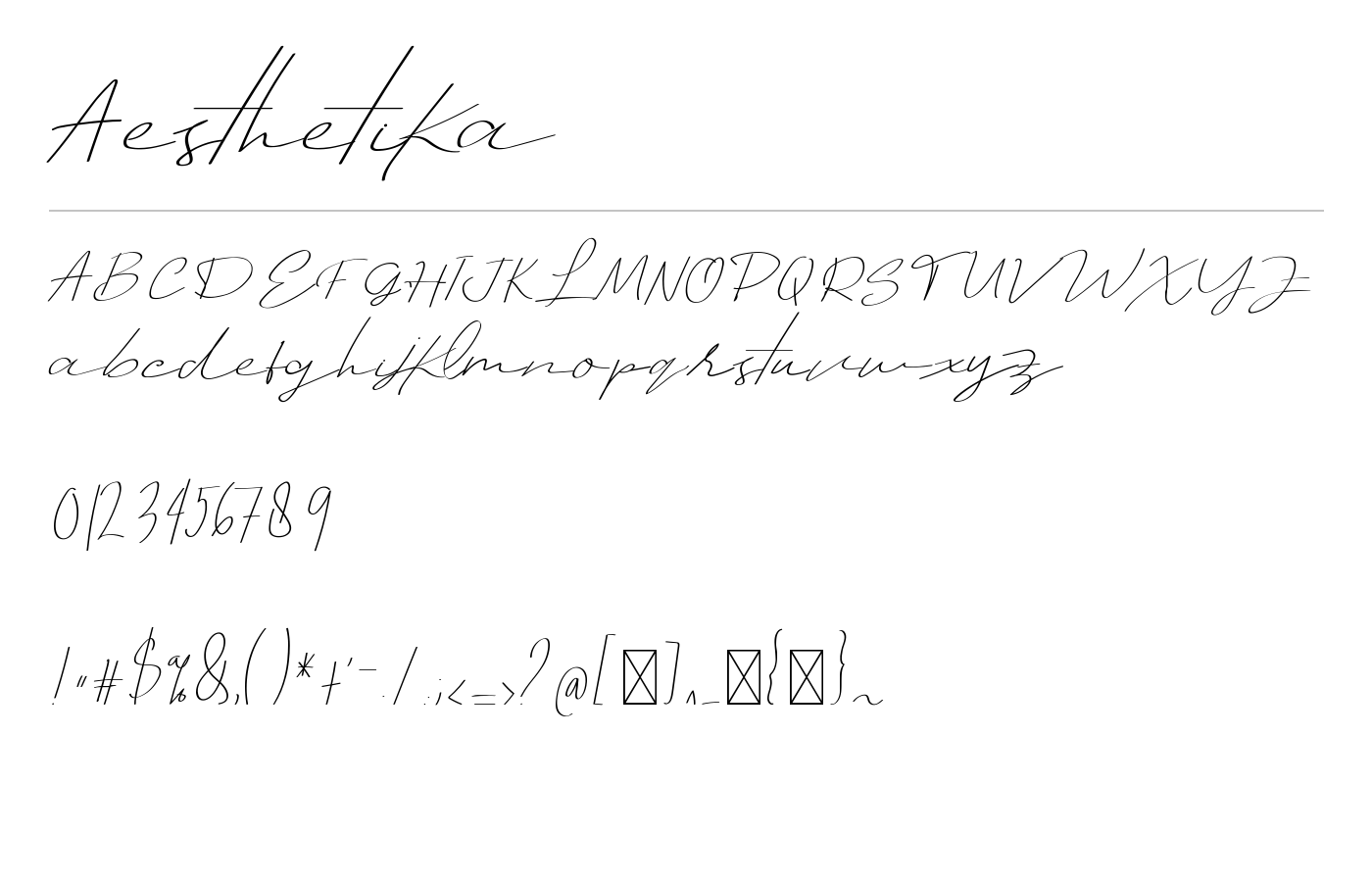
Aesthetika is a delicate, handwritten script font characterized by its thin, elegant strokes and fluid, natural flow. Its light weight and airy structure give it a refined, sophisticated feel, making it ideal for stylish branding, wedding invitations, and personal or luxury projects where a graceful, intimate touch is desired. This font works best in large displays or headings, where its intricate letterforms can be fully appreciated.
Aesthetika Font
About Aesthetika Font